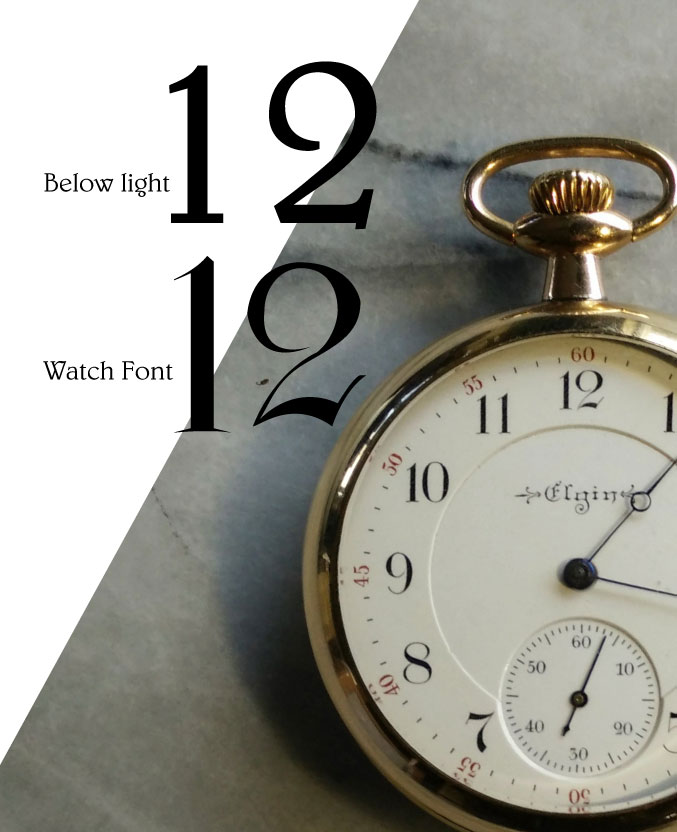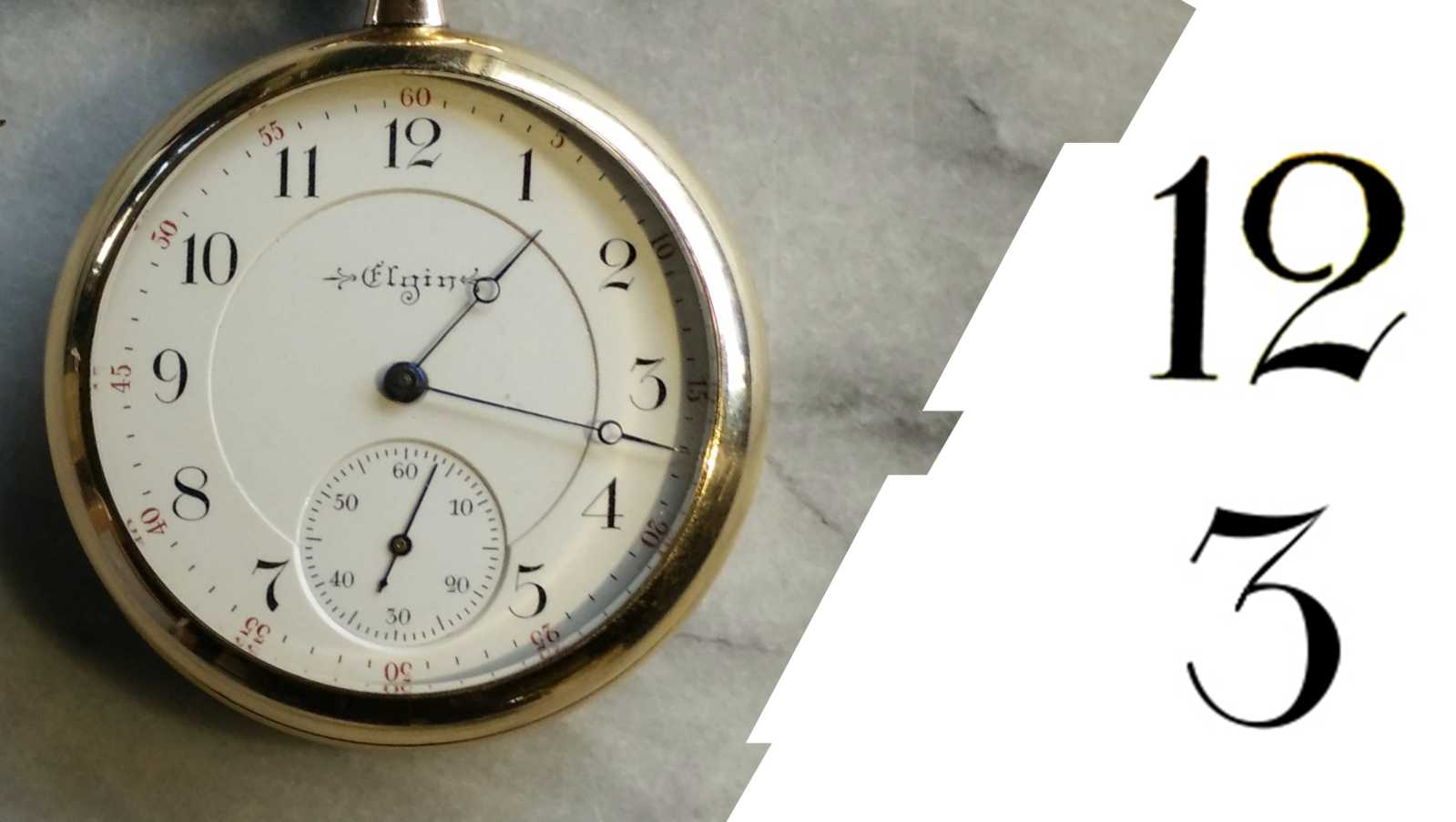
Hello, I'm looking for the font used in the Watch that I've included below.
It is difficult to identify this properly without some uppercase and lowercase characters. In general, this is a digitized version of quill pen based handwriting of the English Edwardian era, of which there are several styles. These numbers sit somewhere between Roundhand, Engraver's Script and Engrosser’s Script. Note that those are not font names, but are names of specific styles of calligraphic style, of which there are many digital font variations.
So, will we consider it as a handwriting from calligraphic style?
What makes you think there is any font (typeface) here to identify?
You uploaded a picture of an antique American watch (from the Elgin National Watch Company of Elgin, Illinois), probably from the last 19th or early 20th century. Or maybe just a contemporary reproduction or faux illustration after an antique watch. You didn't say.
Assuming it is a picture of an actual watch, there's no good reason to believe that they used any commercial typeface. It's likely it was just some lettering that was created by their designer that management agreed looked pleasing and fit the designer's marching orders.
It's not like it's a magazine or a book!
Others have suggested typefaces that look similar.
Edit: look carefully at the lettering. Do you see the subtle differences between side-by-side numerals. Look particularly at "55". It was almost certainly hand-lettered. I'm unfamiliar with how watch faces were made at the time, so cannot say if it was hand-lettered on each individual face, or just to make some master artwork that was then silk-screened or applied using some sort of printing technology. (But guessing not individually hand-lettered.)
You will have to raise someone from the grave to reproduce this typeface! 😉
It might help if you say why it matters. Are you trying to reproduce this in an illustration? Are you writing a description of the face, and want to name the typeface? Some other reason?
Some excellent advice in this thread: In addition, I'd suggest that the OP ask @bunnspecial who is an enthusiast about - as well as something of an expert on - early American watches such as Elgin. He might be able to point you in the right direction towards seeking an answer.
At this point in production, watch dials were typically hand drawn. For dial produced in volume(this is not an overly uncommon dial) I believe the usual practice was to screen print the dial for production based on the initial drawing.
With that said, quite a few dials-especially high grade ones-were hand painted up through ~1900ish. I suspect the artists would have worked from a basic stencil or outline as the starting point but ultimately would end up with a somewhat unique dial. There is one particular Waltham dial I watch for of a particular general style, but every one I own or examine shows very slight differences.
There are particular numeral styles which have specific names in the context of horology. This is is not one of those, although it's somewhat reminiscent of Breguet style numerals. It has what a collector would call an "old English" type signature.
Of course, it's worth mentioning that all dial decoration was applied before the final glaze layer on the dial so that it is effectively baked into place.
Glad to get your response here leekil! Unfortunately, It doesn't look like what was demanded. I think this is an Illustration only for this antique watch. I agree with jtara and bunnspecial.
Idea: scan the image. (Well, duh, it's already scanned!) Use Illustrator to trace the numerals, and clean it up. If you really need a font, there are tools that will make a font from a set of vector images. Presume you are interested in only the numerals?
Now, it's not quite that simplistic, as fonts generally have rules that actually modify details depending on the rendered size, for kerning when one particular character is placed next to another particular character, etc. etc. etc. But might do for your purpose without a lot of tweaking.